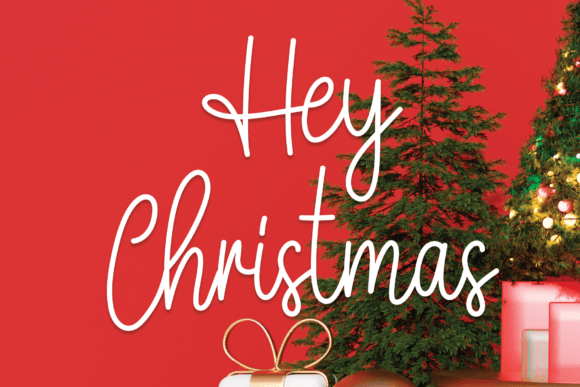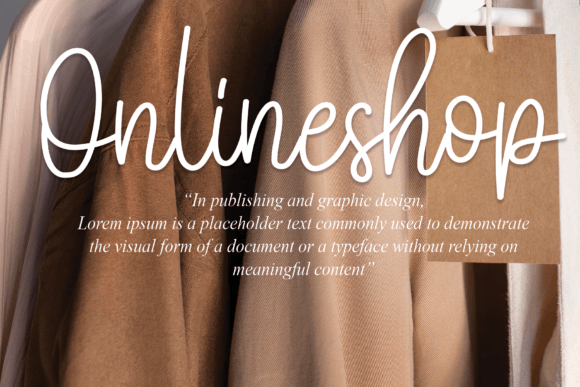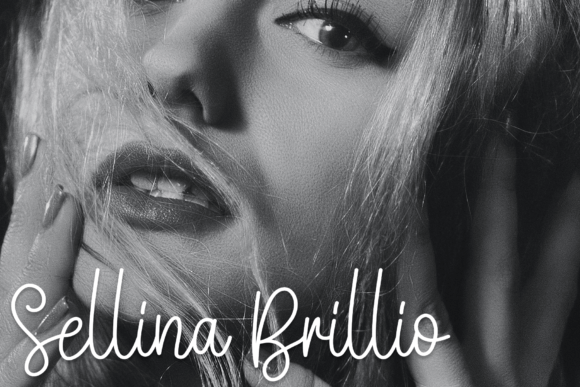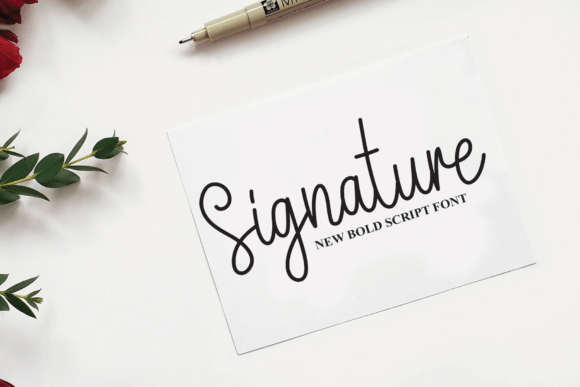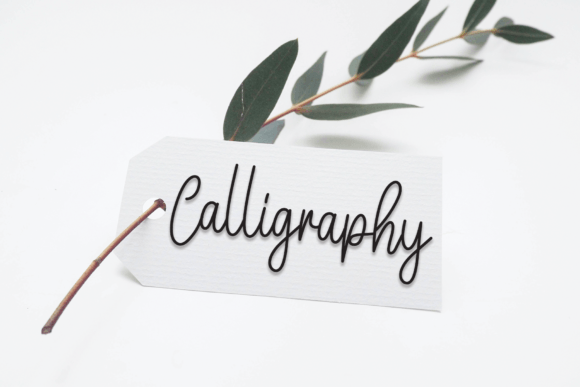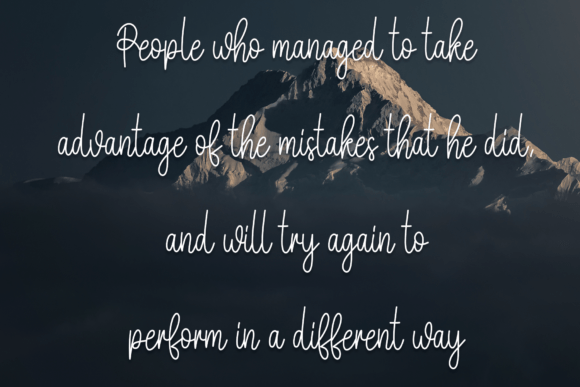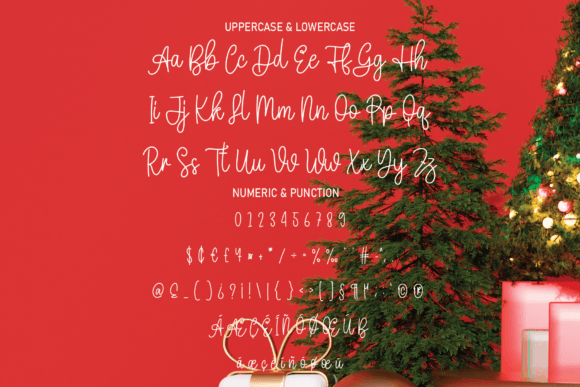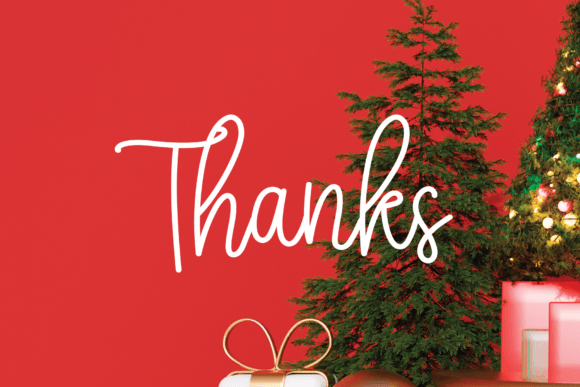
Hey Christmas Font
Hey Christmas is a dazzling script font. This font is neatly crafted and highly detailed. Whatever the topic, this font will be a wonderful asset to your font library, as it has the potential to enhance any creation.